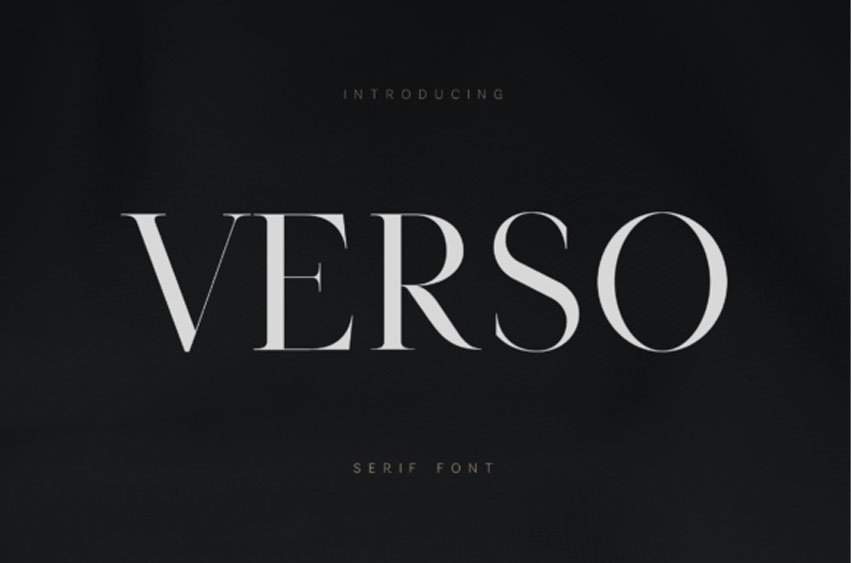
Verso Font is a refined modern serif font designed for elegant, high-end visual communication. With its sharp contrast, graceful curves, and balanced proportions, it delivers a sophisticated editorial feel perfect for premium design work.
The typeface combines classic serif structure with a contemporary touch, making it ideal for creating strong visual identity systems, stylish headlines, and timeless layouts.
Verso stands out in both large display settings and refined compositions, offering clarity, elegance, and versatility across different creative directions.